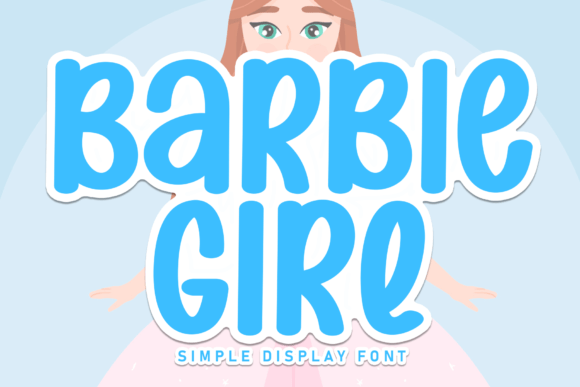
Have you ever sat at your desk, staring at a blank canvas, waiting for the perfect font to come to you? It’s a feeling many designers know all too well. But what if I told you that the perfect font is just a click away? Introducing the Barbie Girl Font, a creative and stylish font designed to take your projects to the next level.
The Barbie Girl Font is a versatile and modern font that’s perfect for a wide range of applications, from wall displays and wedding invitations to social media logos and product packaging. Its unique and playful style makes it a valuable asset for designers looking to add a touch of personality to their work.
Barbie Girl Font Key Features
- Font Style: A sans-serif, futuristic font with a playful and bubbly feel, reminiscent of the 1990s.
- Unique Characteristics: The font features distinctive rounded shapes, exaggerated letterforms, and a vibrant color palette, making it a standout choice for creative projects.
Barbie Girl Font Review
The Barbie Girl Font is a fun, playful font that’s sure to bring a smile to your face. I love how it captures the essence of the iconic Barbie Girl song, with its bubbly and energetic vibe. ✨ The font is perfect for designers looking to add a touch of whimsy and nostalgia to their projects.
- ✨ Unique and recognizable style that’s instantly associated with the Barbie Girl brand
- ✨ Great for creating eye-catching headlines and titles
- ✨ Suitable for a wide range of projects, from children’s products to retro-themed designs
- ⚠️ Limited versatility for more serious or formal designs
- ⚠️ May be too flashy or overwhelming for some audiences
- ⚠️ Not ideal for body text or large blocks of text, as it can be difficult to read
Overall, I think the Barbie Girl Font is a fun and creative addition to any designer’s toolkit. While it may have some limitations, it’s perfect for designers looking to add a touch of personality and playfulness to their projects.
Getting the Most Out of the Barbie Girl Font
- Use the font for playful and whimsical designs.
- Pair the font with bright and bold colors.
The Barbie Girl Font is commonly used for:
- Toy and product packaging design.
- Whimsical and playful branding materials.